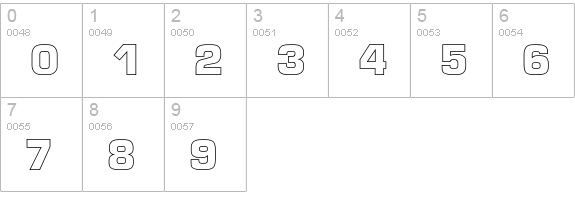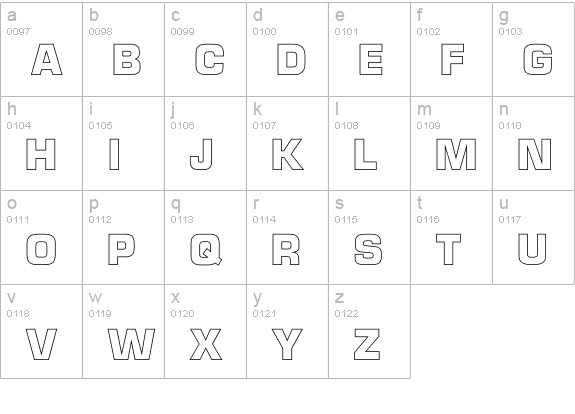
MicroTechnicBoldOutline Font Details
Introducing MicroTechnicBoldOutline font - a sleek and modern typeface designed with precision and sophistication. This bold outline font exudes a sense of futuristic elegance, making it perfect for a wide range of design projects. With its clean lines and sharp edges, MicroTechnicBoldOutline font commands attention and adds a touch of sophistication to any creative endeavor. Best of all, MicroTechnicBoldOutline font is available for free download at FontsMarket.com. Take advantage of this incredible offer and add this striking font to your collection today. Whether you're working on a branding project, website design, or any other creative endeavor, MicroTechnicBoldOutline font is sure to make a bold statement and leave a lasting impression. Download now and elevate your designs with this modern and stylish typeface.